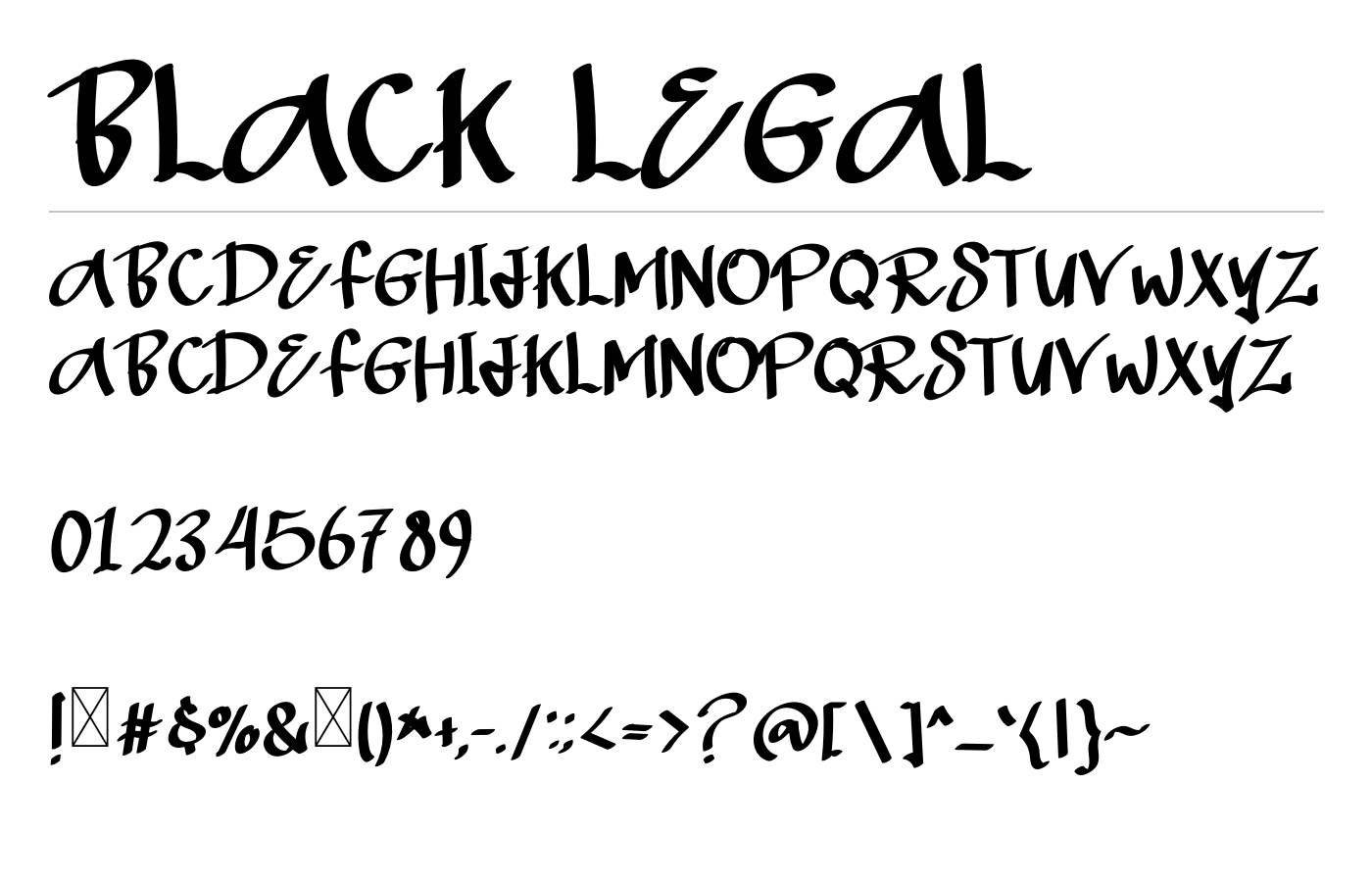
Black Legal is a bold, hand-brushed script font with lively, expressive strokes that combine a casual yet confident personality. Its slightly irregular shapes and dynamic curves lend an artistic, informal feel, making it ideal for creative projects, headlines, and branding that seek a personal and energetic touch. This font works well where a strong, humanistic style is desired, such as posters, logos, or packaging for fun and approachable brands.
Black Legal Font
About Black Legal Font
| Font family | Black Legal Font |
| Designer | Nur Edi Prayitno |